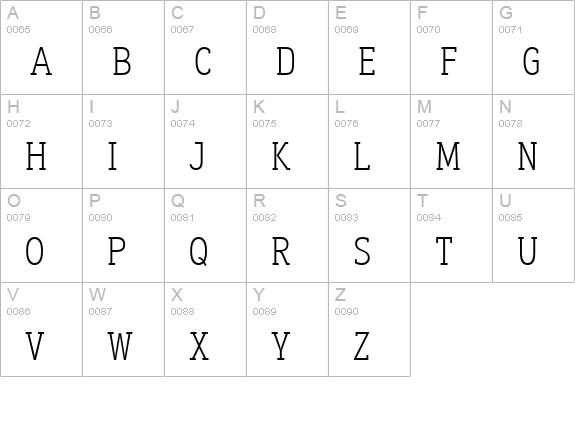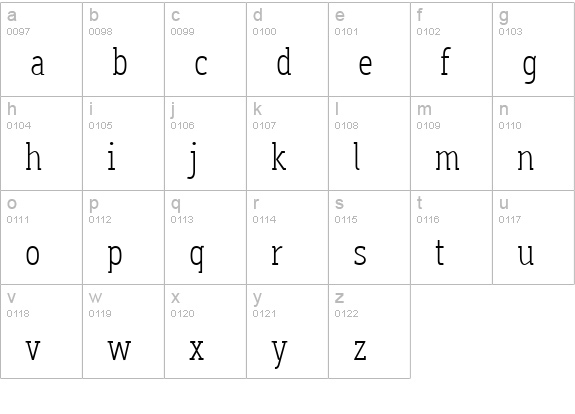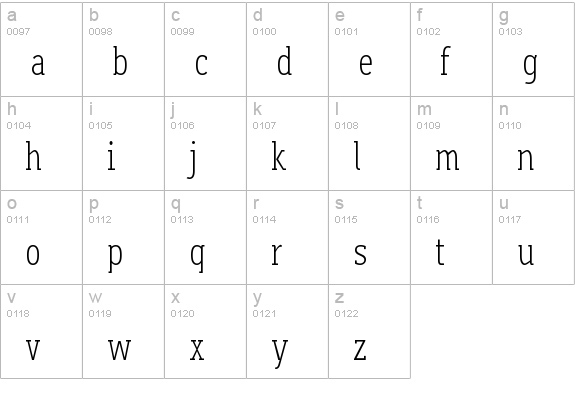
Aaux OfficeLight Font Details
Aaux OfficeLight is a modern and sleek typeface designed for professional use in office settings. Its clean lines and simple yet elegant appearance make it perfect for various corporate communication materials such as reports, presentations, and documents. The light weight of the font adds a touch of sophistication while maintaining readability and clarity. This font is versatile and can be used for both headings and body text, making it a practical choice for a wide range of design projects. Whether you're creating a sleek business card or a professional website, Aaux OfficeLight is sure to elevate your design. Best of all, Aaux OfficeLight is available for free download at FontsMarket.com, making it accessible to designers and businesses looking for a high-quality font without breaking the bank. Don't miss out on this opportunity to enhance your projects with the stylish and modern Aaux OfficeLight font.